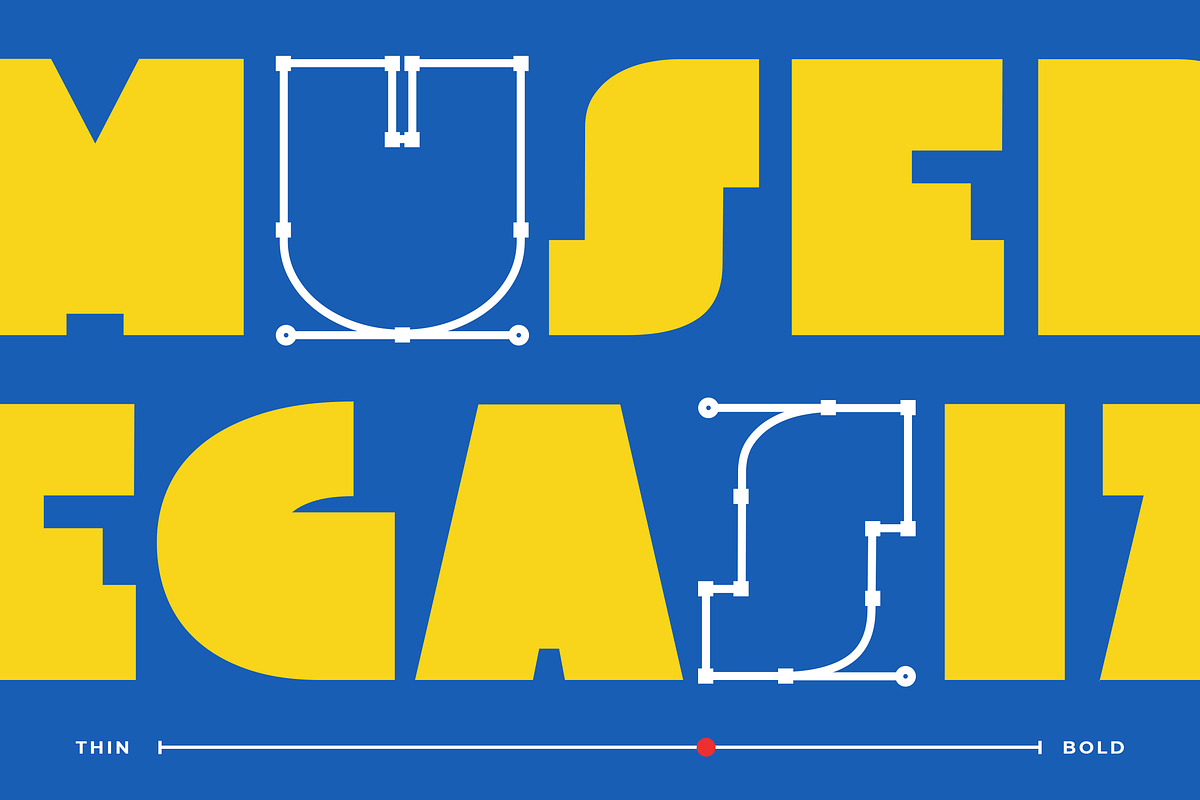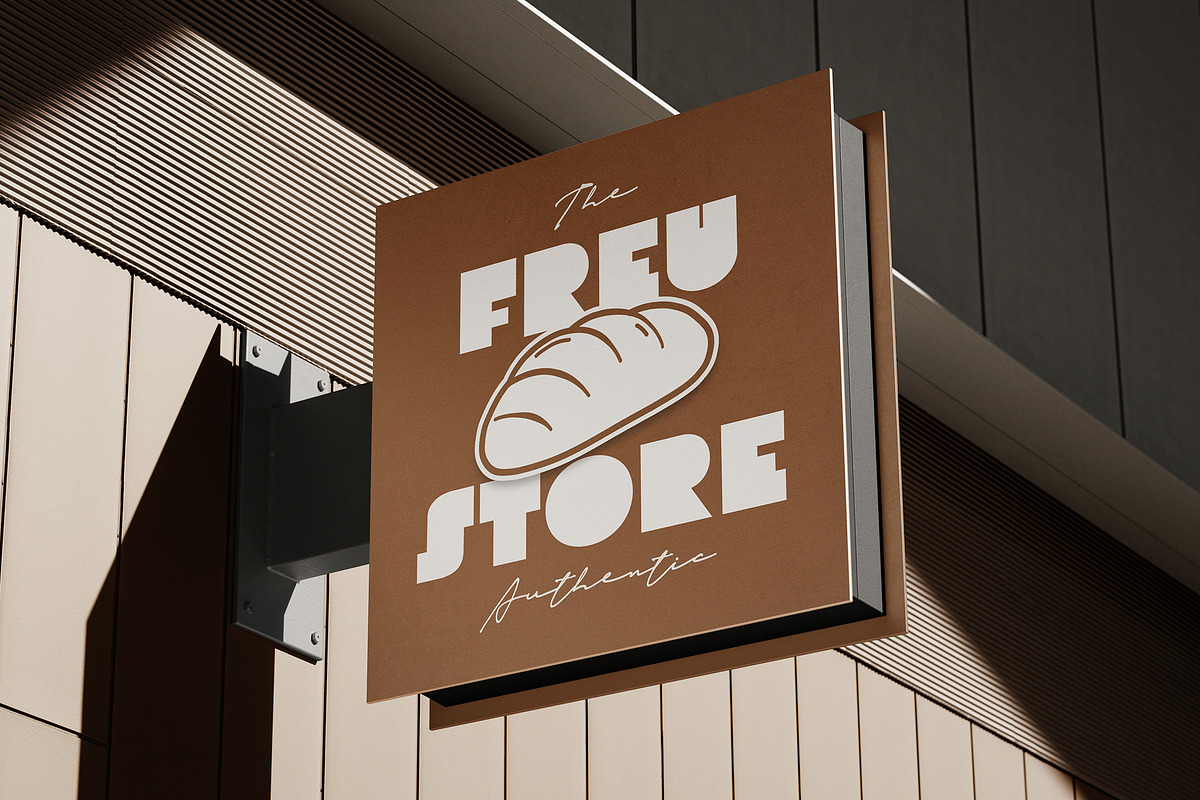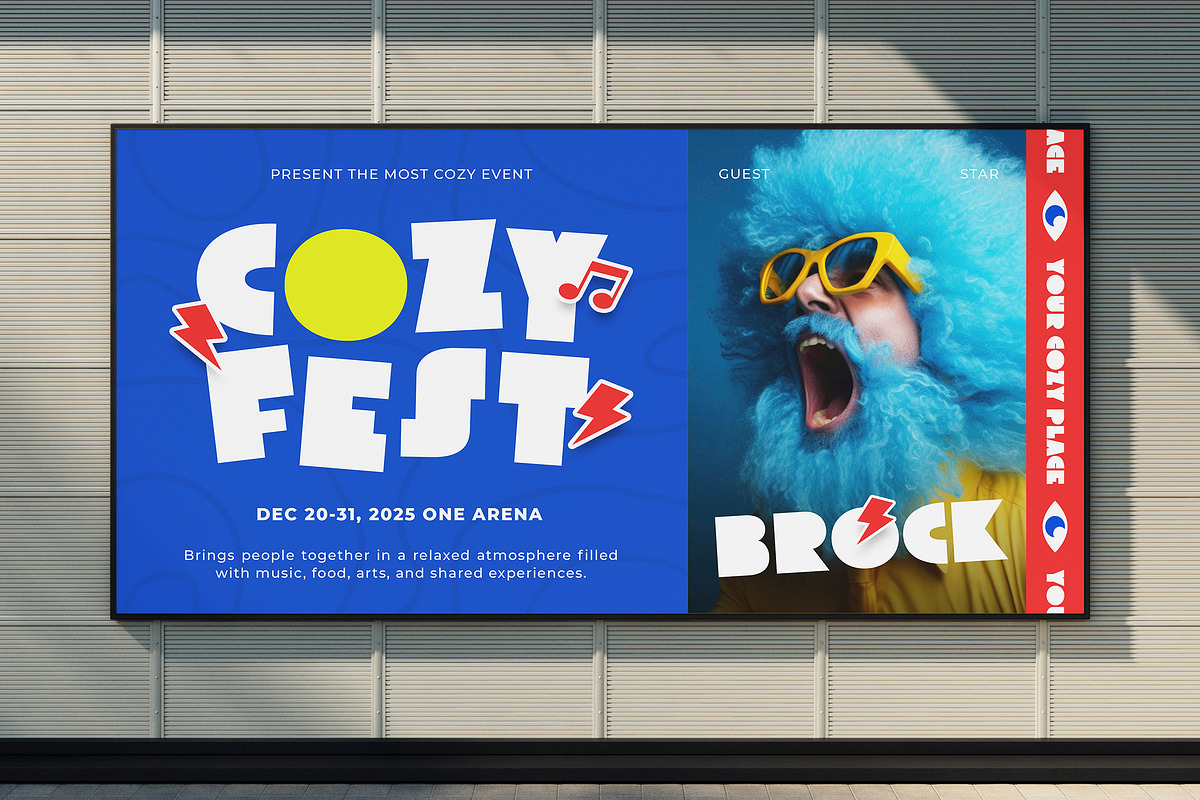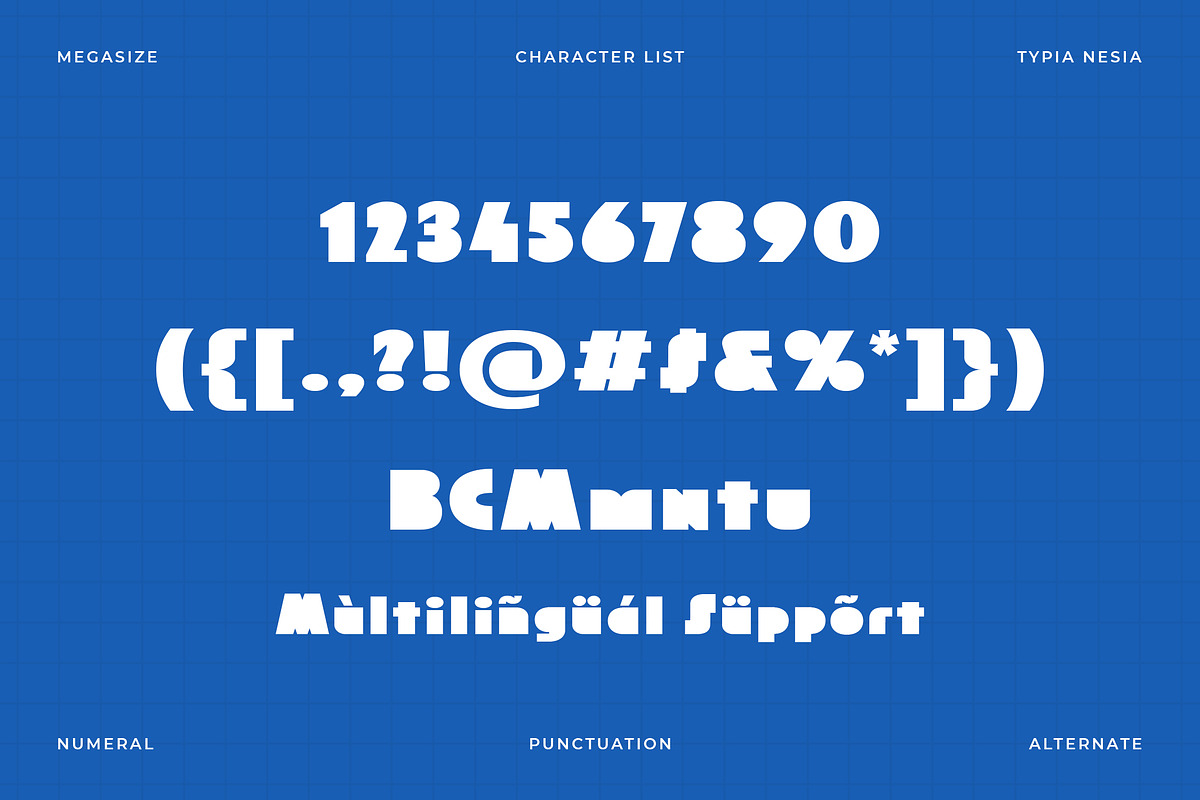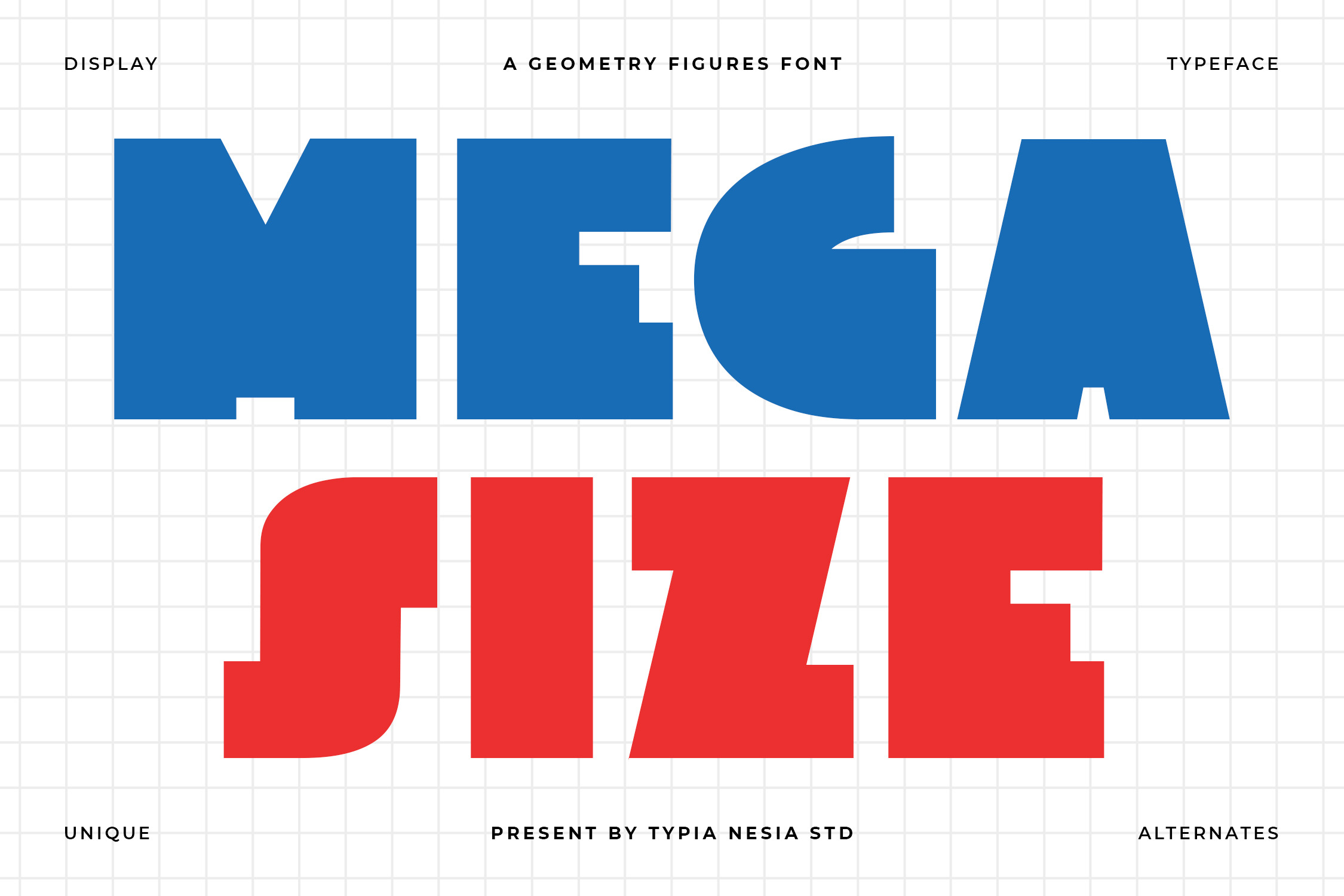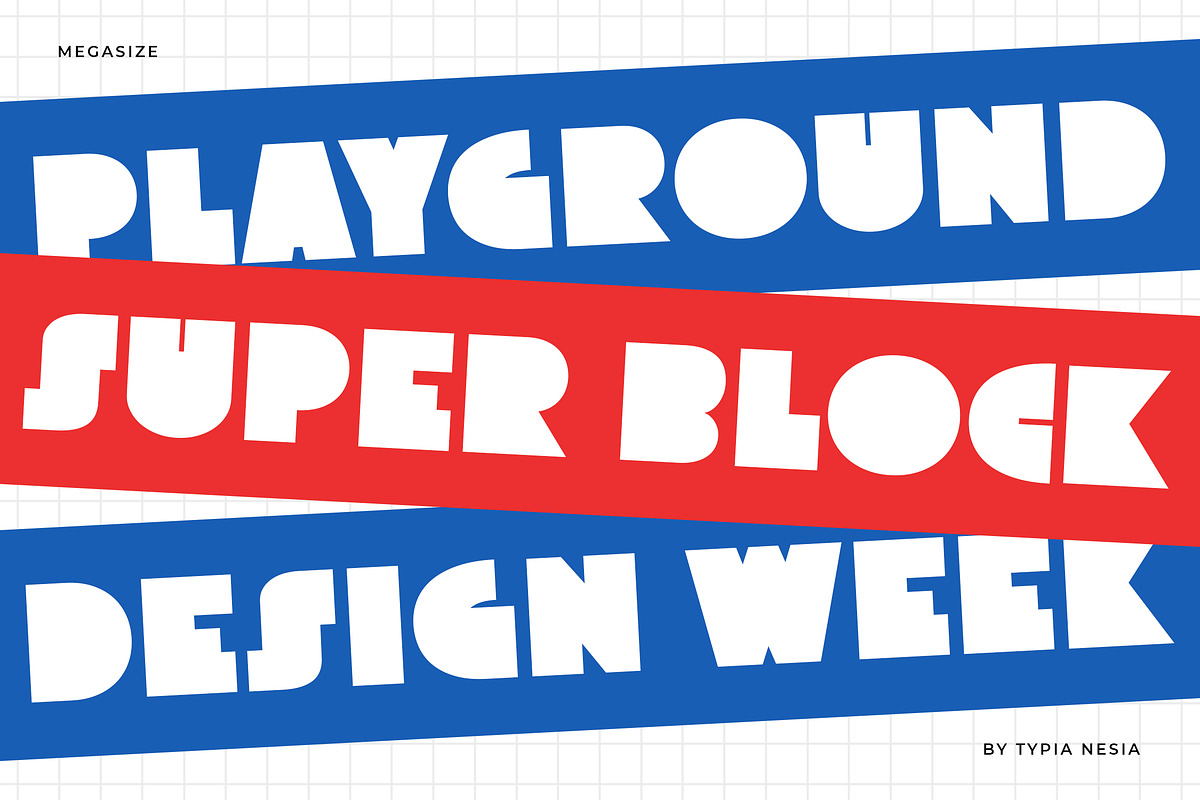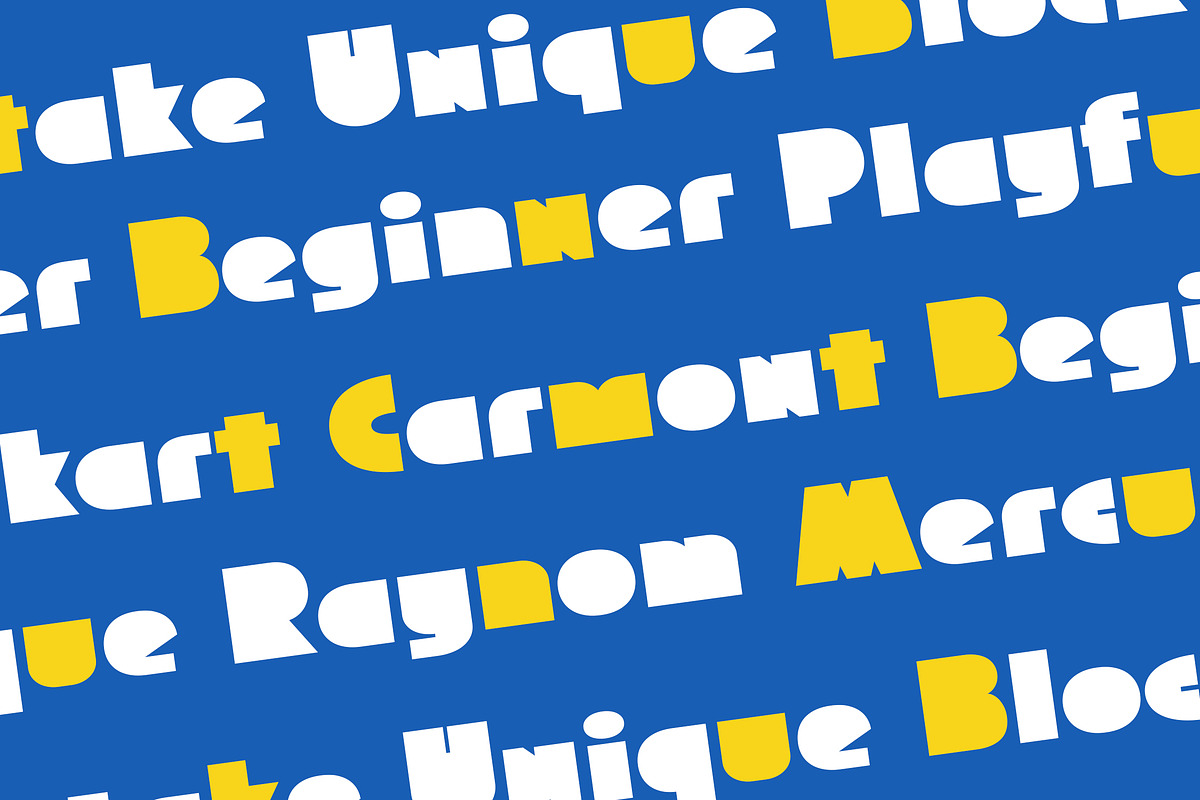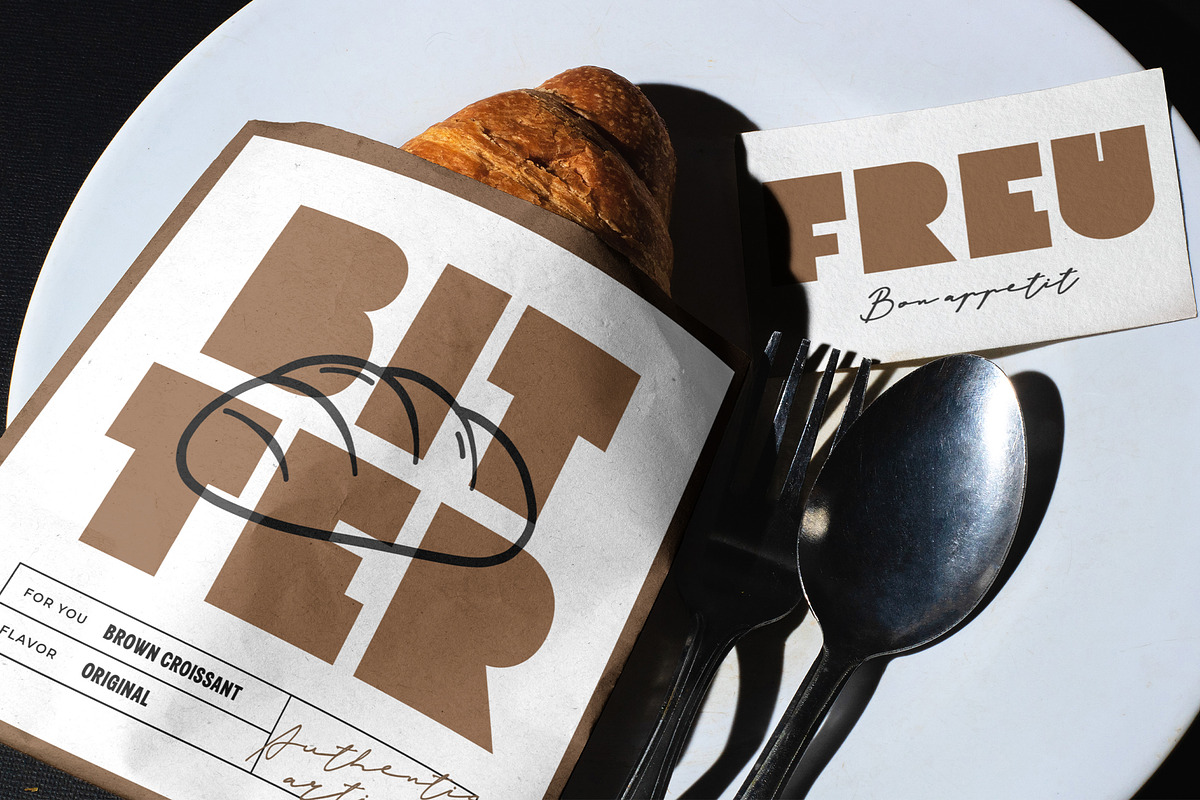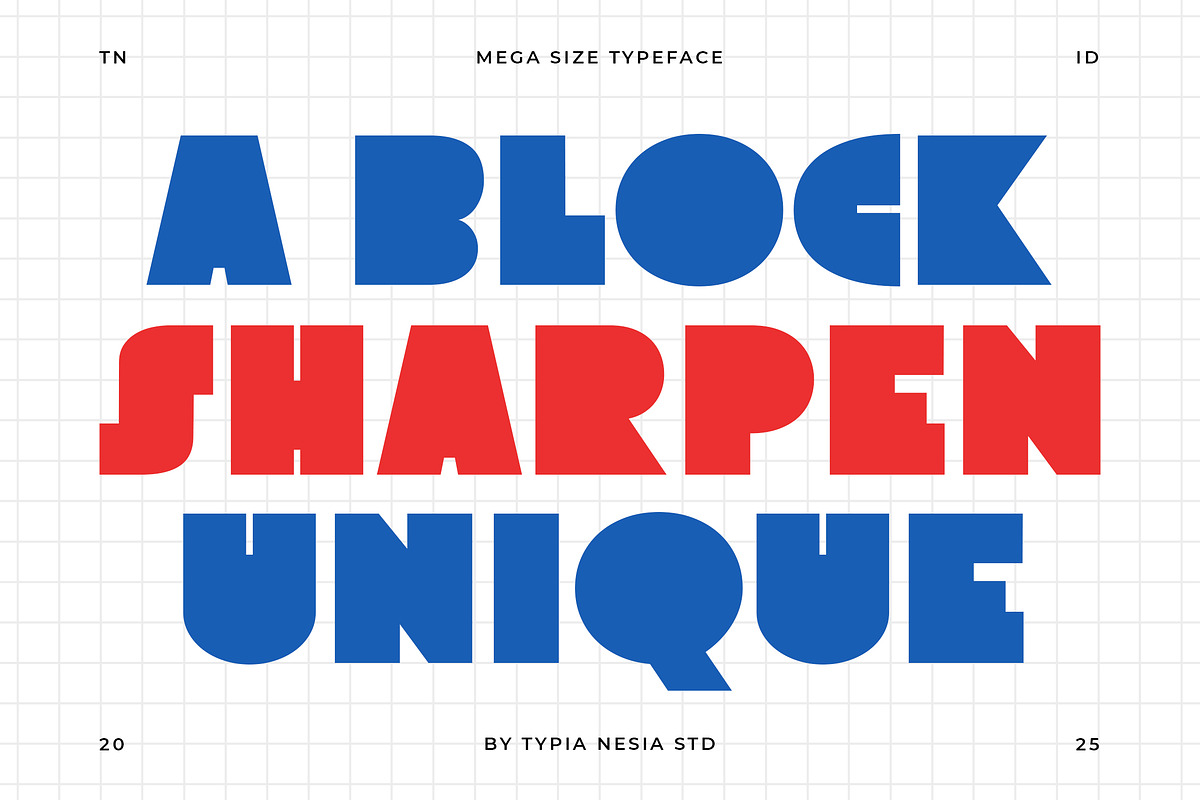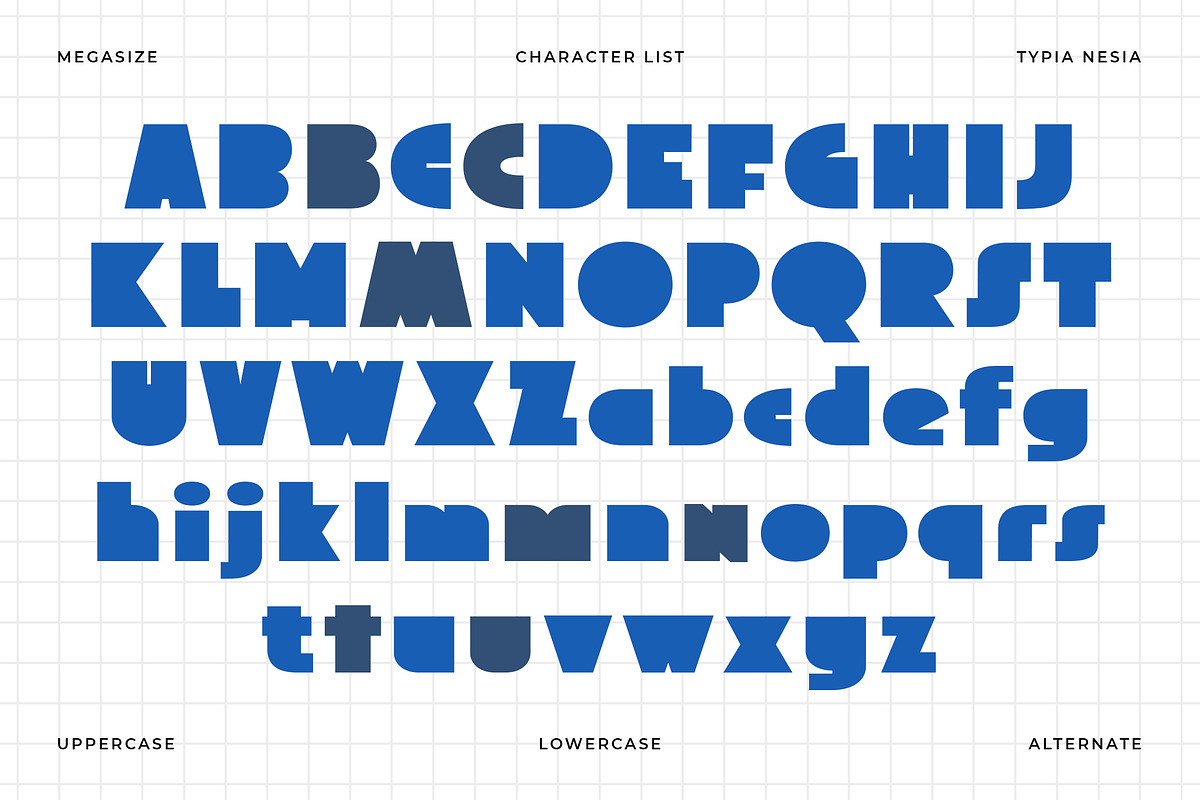
Megasize - Bold Geometric Font
Megasize - Bold Solid Geometric Logo Font - Modern Playful & Fun Minimal Display Font
Megasize is a bold and modern display sans-serif font designed to grab attention. With its solid, geometric shapes, this typeface is perfect for headlines, logos, posters, packaging, merchandise, advertising and any branding project that needs a strong, playful and unique visual presence. Each character is crafted with precision to create a sturdy, legible look, even at large sizes. Megasize is the ideal choice for graphic designers who want to make a bold statement and ensure their message stands out.